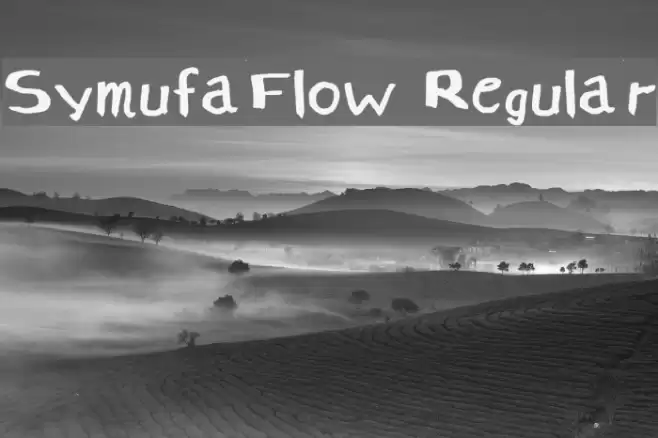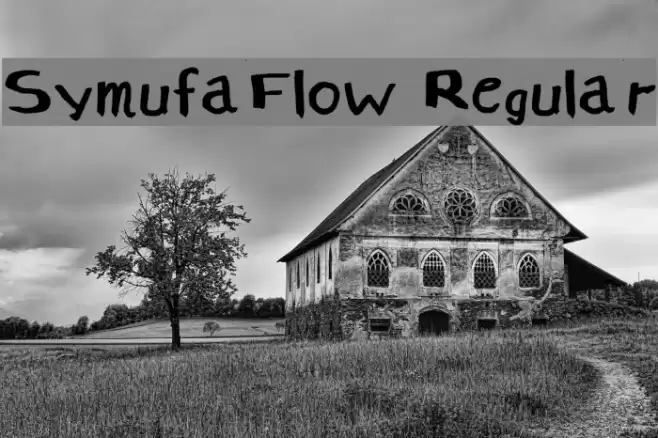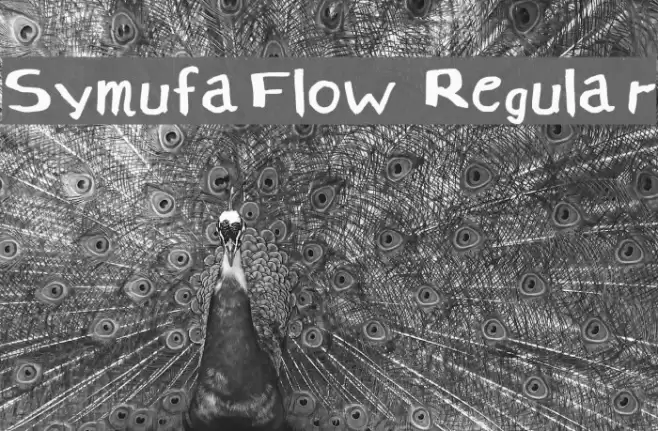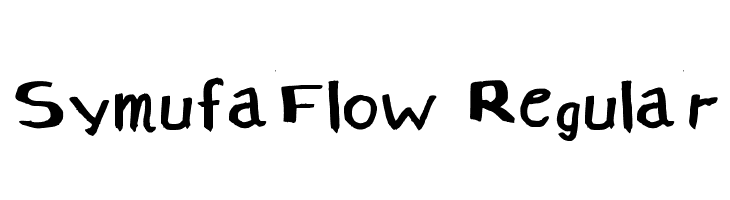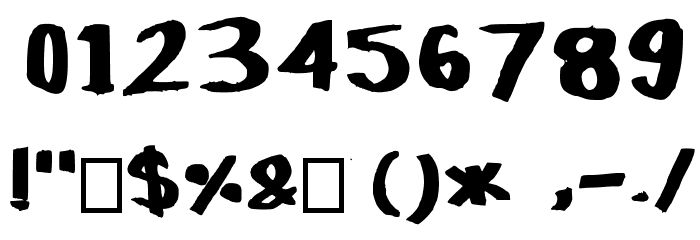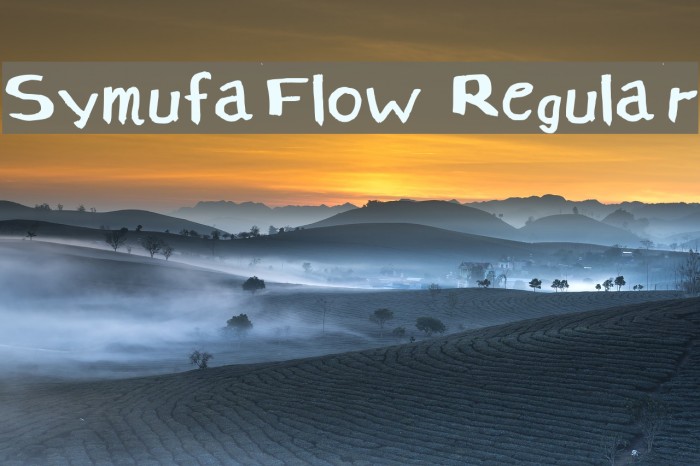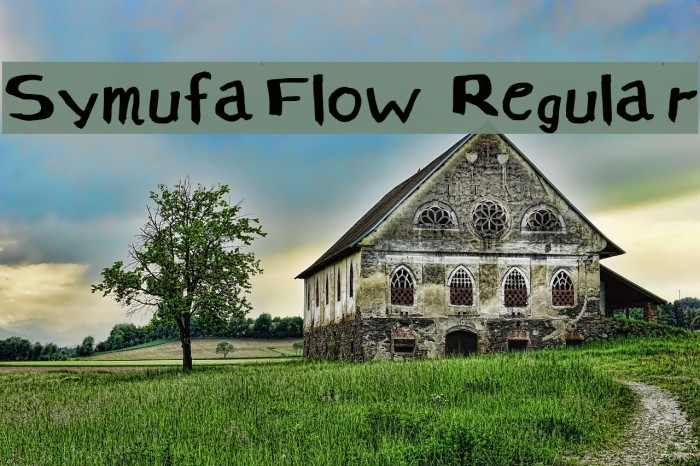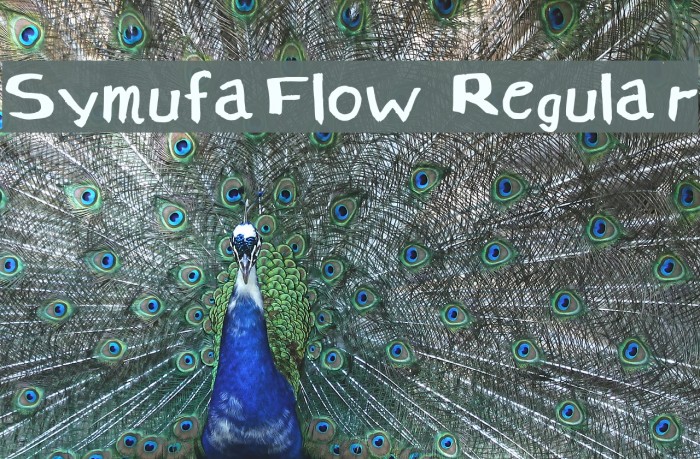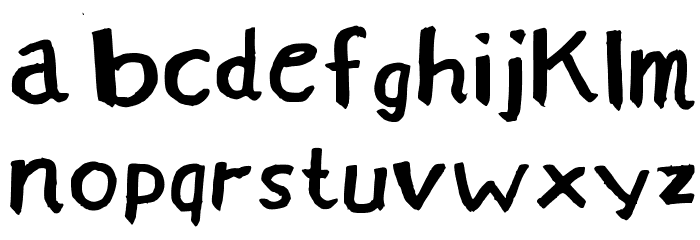
SymufaFlow Regular Font
SymufaFlow Regular Description
This font features a bold and expressive style with a hand-drawn appearance. The characters are slightly irregular, adding a playful and artistic touch. The strokes are thick and varied, giving it a dynamic and energetic feel. The uppercase letters are strong and impactful, while the lowercase letters maintain a consistent flow. Numbers and special characters follow the same bold and lively design, making them stand out. This font is ideal for projects that require a personal and creative touch, such as posters, invitations, and branding materials.
A bold, hand-drawn font with an expressive and playful style from Uncategorized fonts.
- Proposed Projects: Ideal for posters, invitations, branding, and creative projects requiring a personal touch.